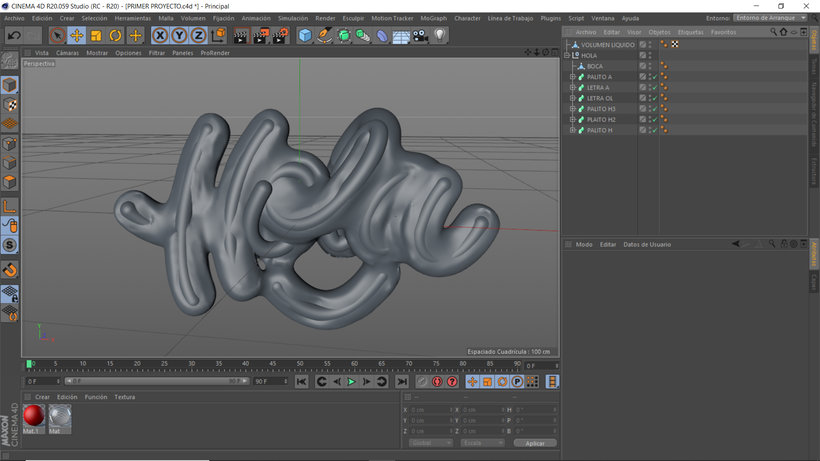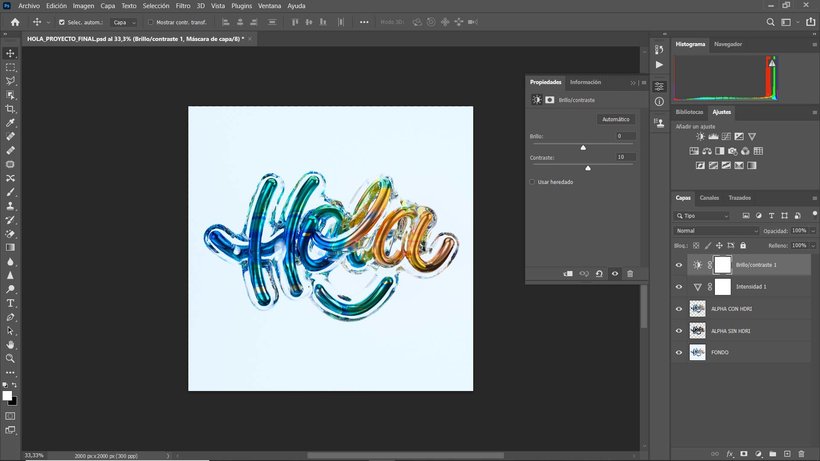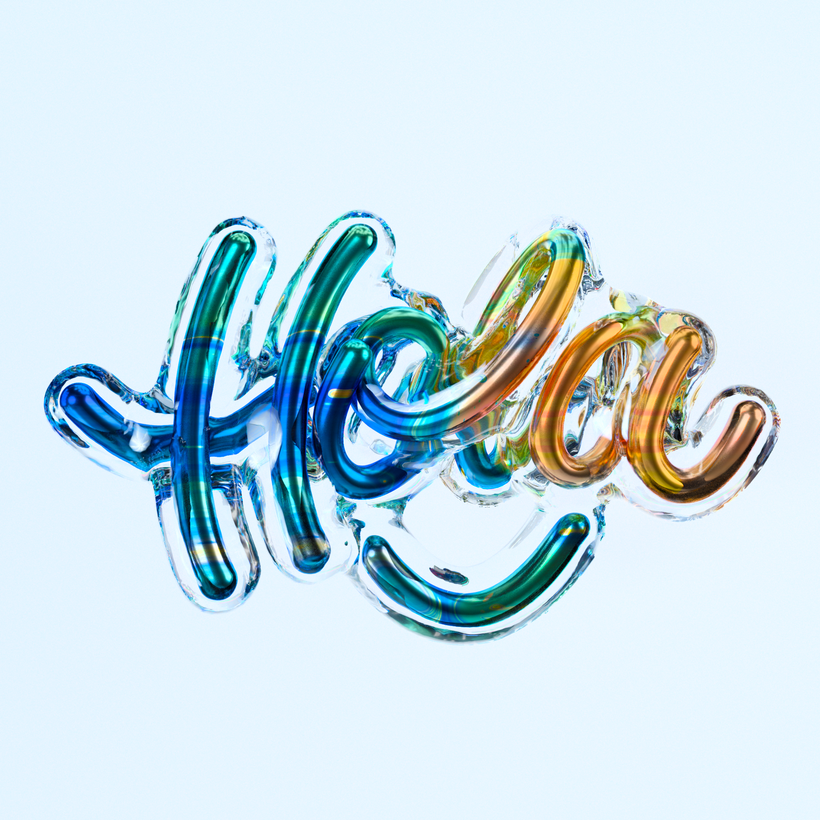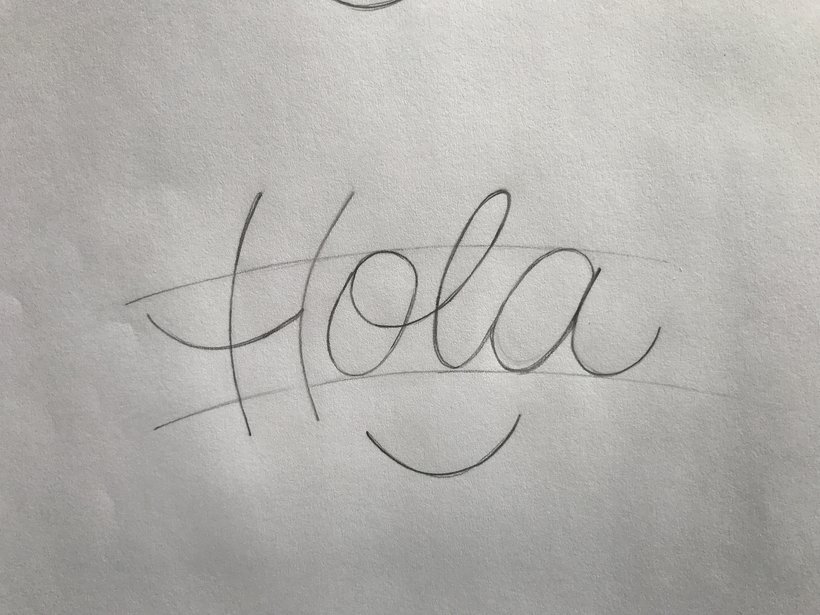
3D Font Design with a Metallic Finish
About the final project for: 3D Font Design with a Metallic Finish
Make 3D fonts with a metallic finish
“We've reached the end of this course! I hope it has given you enough tools to keep experimenting with letters. Below I'll give you a rundown of what you need to do to complete your project. Search for references To start, it is always a good idea to look for references and create a mood board that makes you happy, with colors, textures and composition. All of this will help you find a style that you can enhance in Cinema 4D.
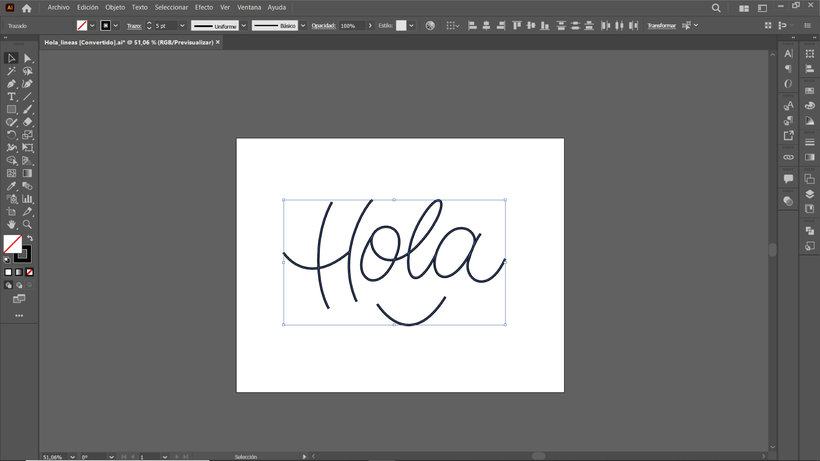The word or phrase Choose a word or phrase you want to model, sketch as many times as necessary and define the style. Make the sketch a little bigger so that vectorizing is much easier. The more sketches you make, the more you will learn. At the beginning I recommend using a word with few letters so that you will learn the technique more easily.
Vectorize Once you have the sketch on paper or on your iPad, take a photo or scan it. Then save it to your computer and start vectorizing in Illustrator.
Modeling Once you have your lettering or vectorized letters, it's time to play around in Cinema 4D. Choose the style you want; you can also mix the three styles you've learned. It's time to make magic and let your imagination run wild. Experiment with textures, lighting and, why not, other techniques too. Remember that you are free to create your own style. Don't limit yourself and start creating!
Render and final touches Finally, render. In the previous unit I set the stage for you to use the render settings to bring your projects to life. To improve the colors, adjust the saturation, brightness, and contrast in Photoshop.